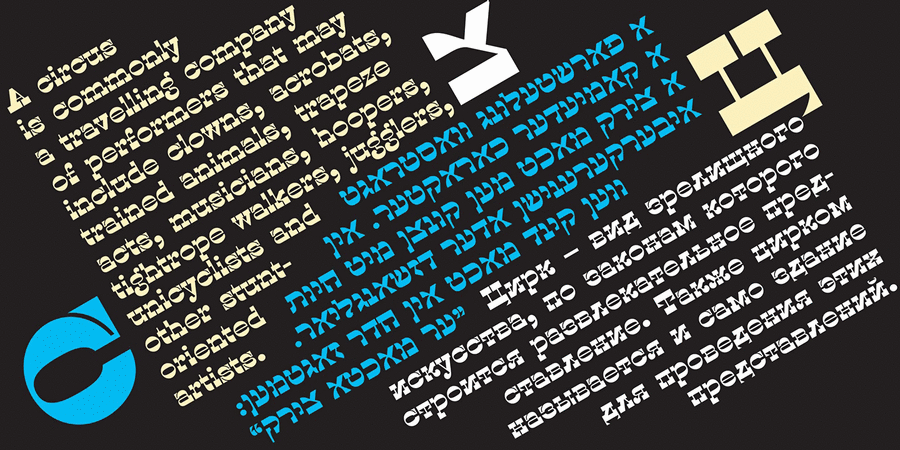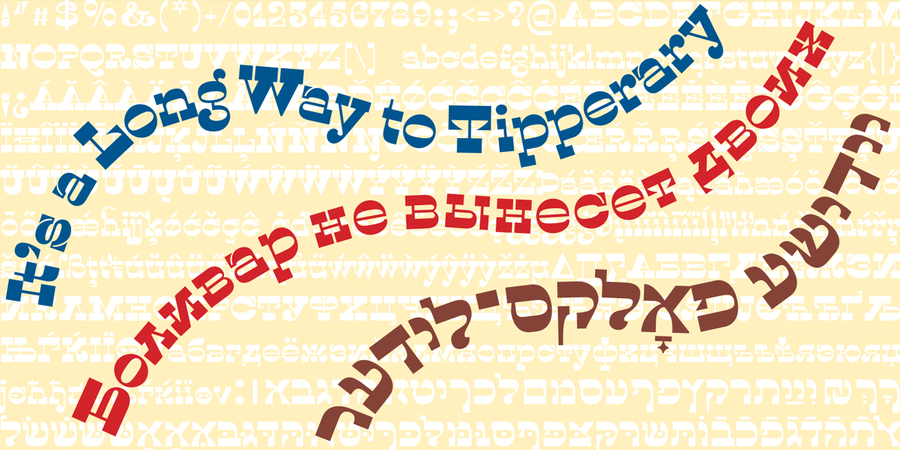
Logo font pair with Old Kharkiv Regular (1 of 2)About Caslon 1821Caslon1821 is a revived "Italian" typeface of foundry Caslon & Livermore, 1821. The typeface quickly extended across Europe and America. It came to Russia from France and became very popular in the 30s of the XIX century. It's Cyrillic versions were offered by type foundries of Revillion and Co., Pluchard, Semen, etc. In our version we also added support for Hebrew (with vowels). Designed by Viktor Kharyk, Konstantin Golovchenko in 2014.